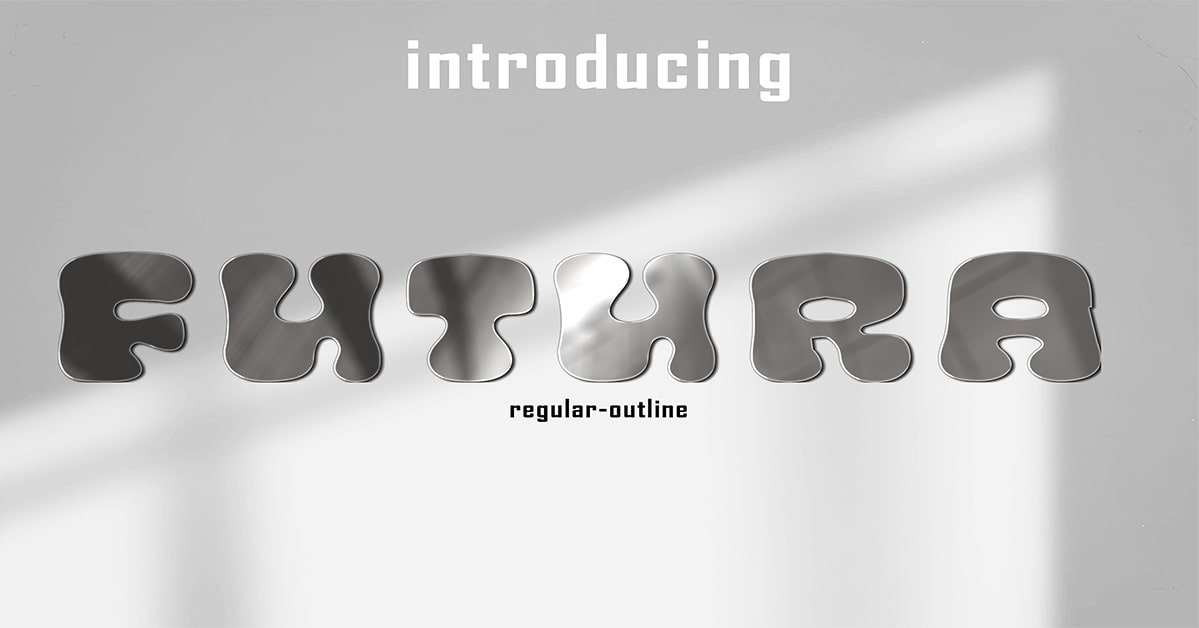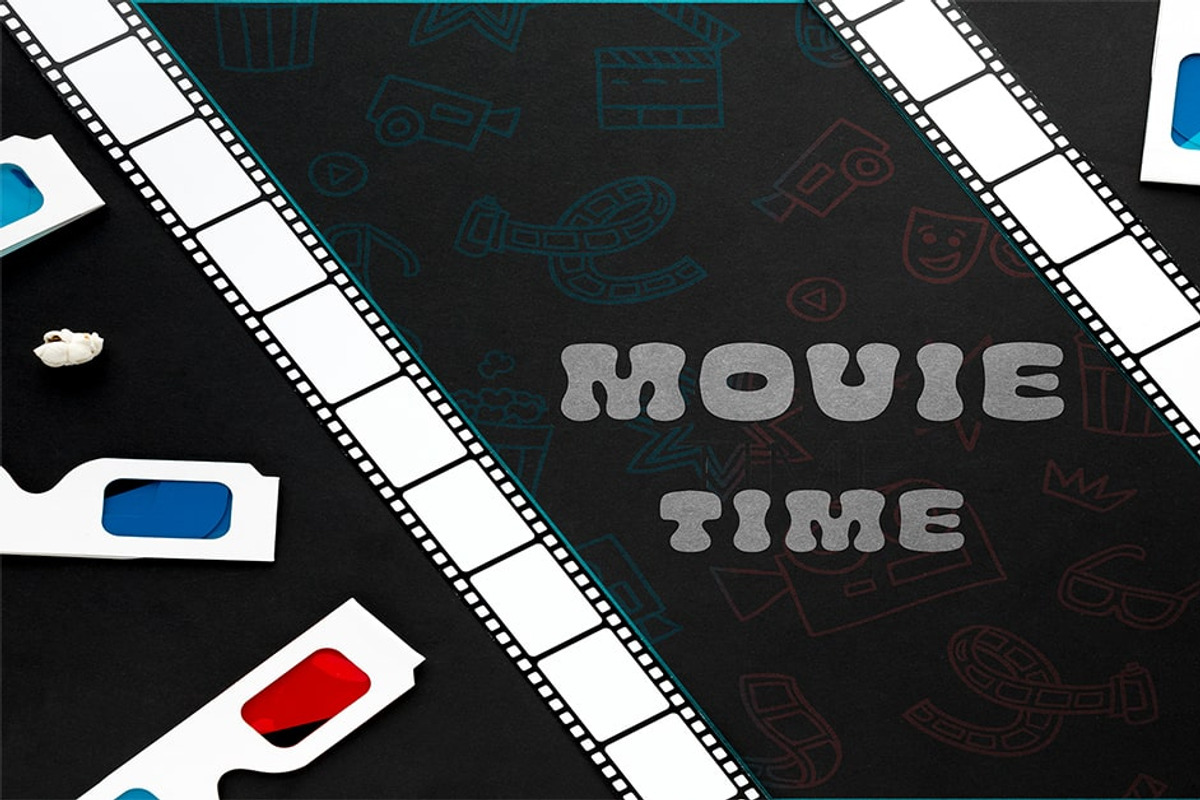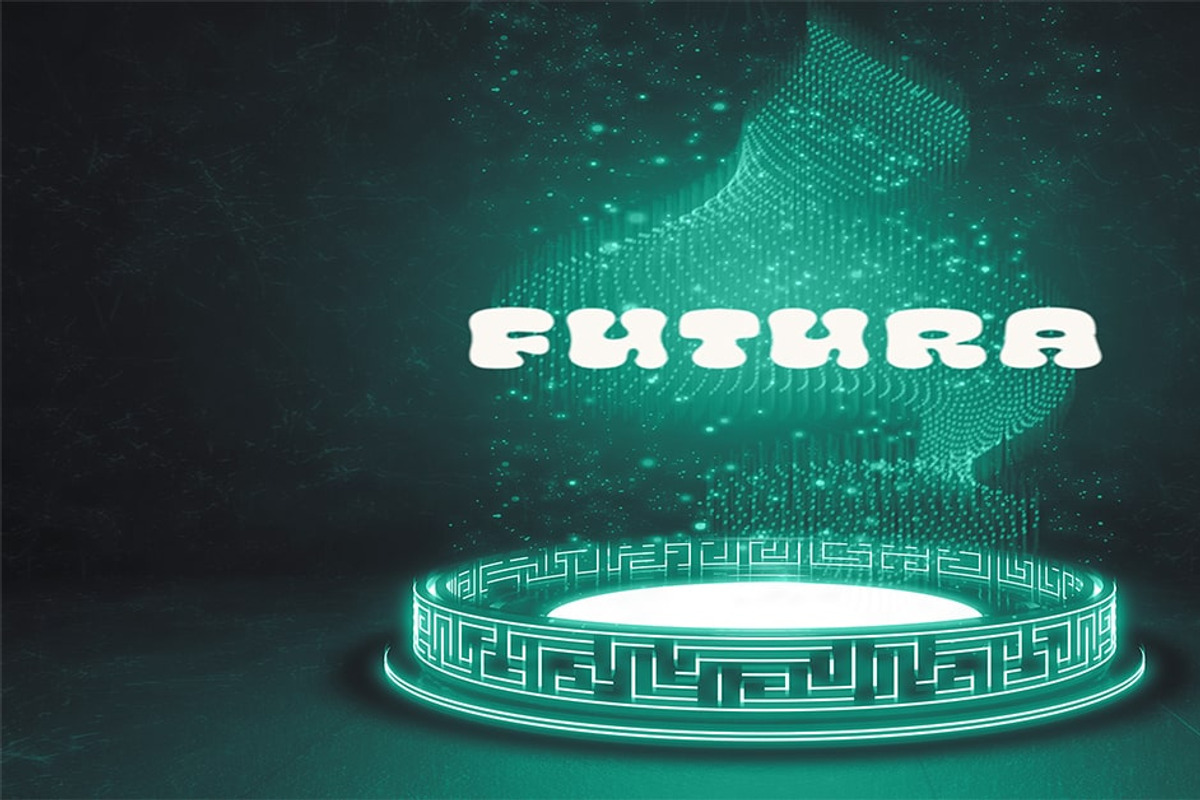
Futura Font
Futura is a chic, wavy and whimsical display font. It embodies playfulness and authenticity and is the perfect choice for any children activity or school project.